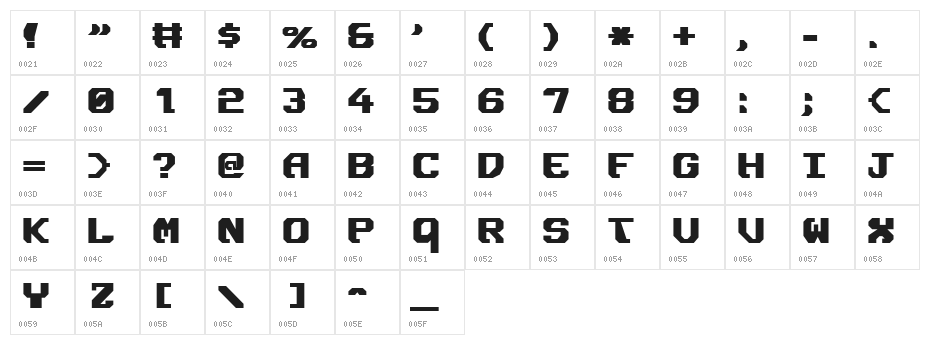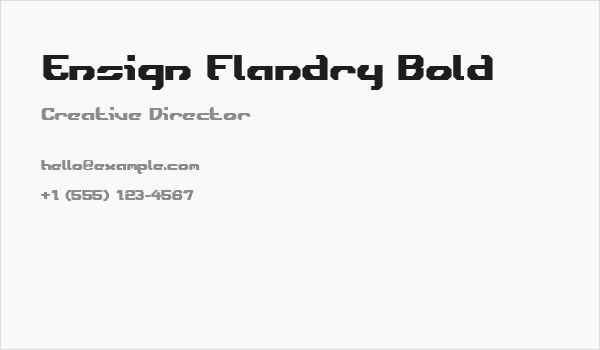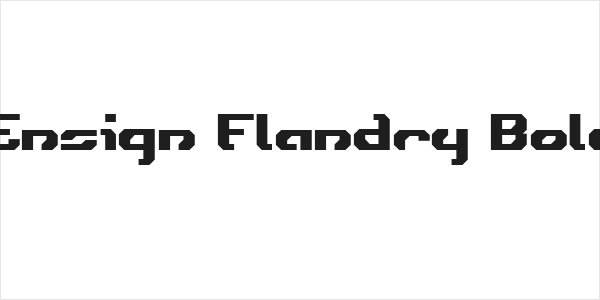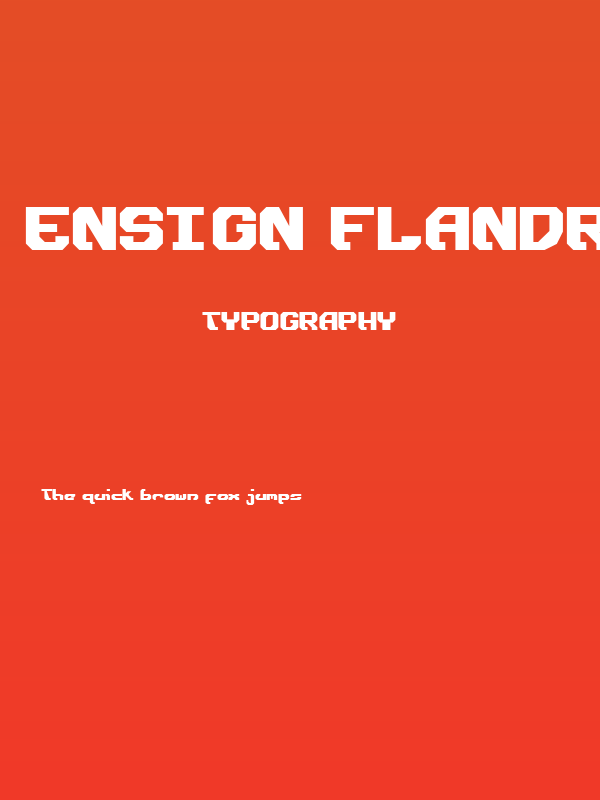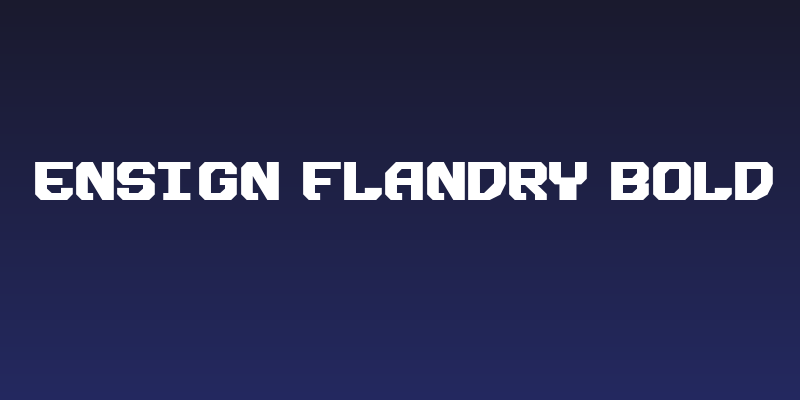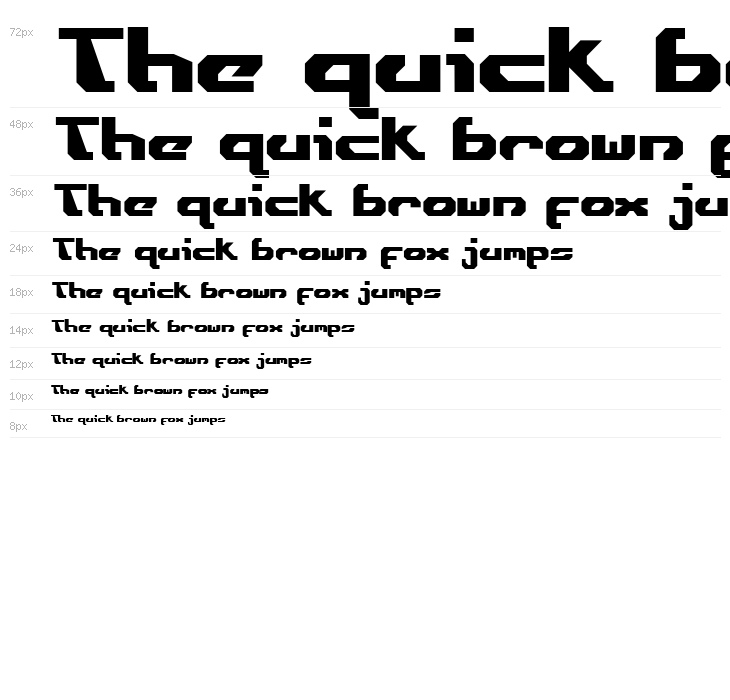
Ensign Flandry Bold Font
Ensign Flandry Bold Description
This font features a bold and geometric design with a futuristic flair. The characters are constructed with sharp angles and straight lines, giving it a distinct, edgy appearance. The uppercase and lowercase letters maintain a consistent style, with a blocky and robust structure. Numbers and special characters follow the same design principles, ensuring uniformity across all glyphs. The font's boldness and unique style make it stand out, suitable for projects that require a modern and striking visual impact.
| Proposed Projects | Ideal for sci-fi themed posters, video game titles, branding for tech companies, and any project needing a modern, bold statement. |